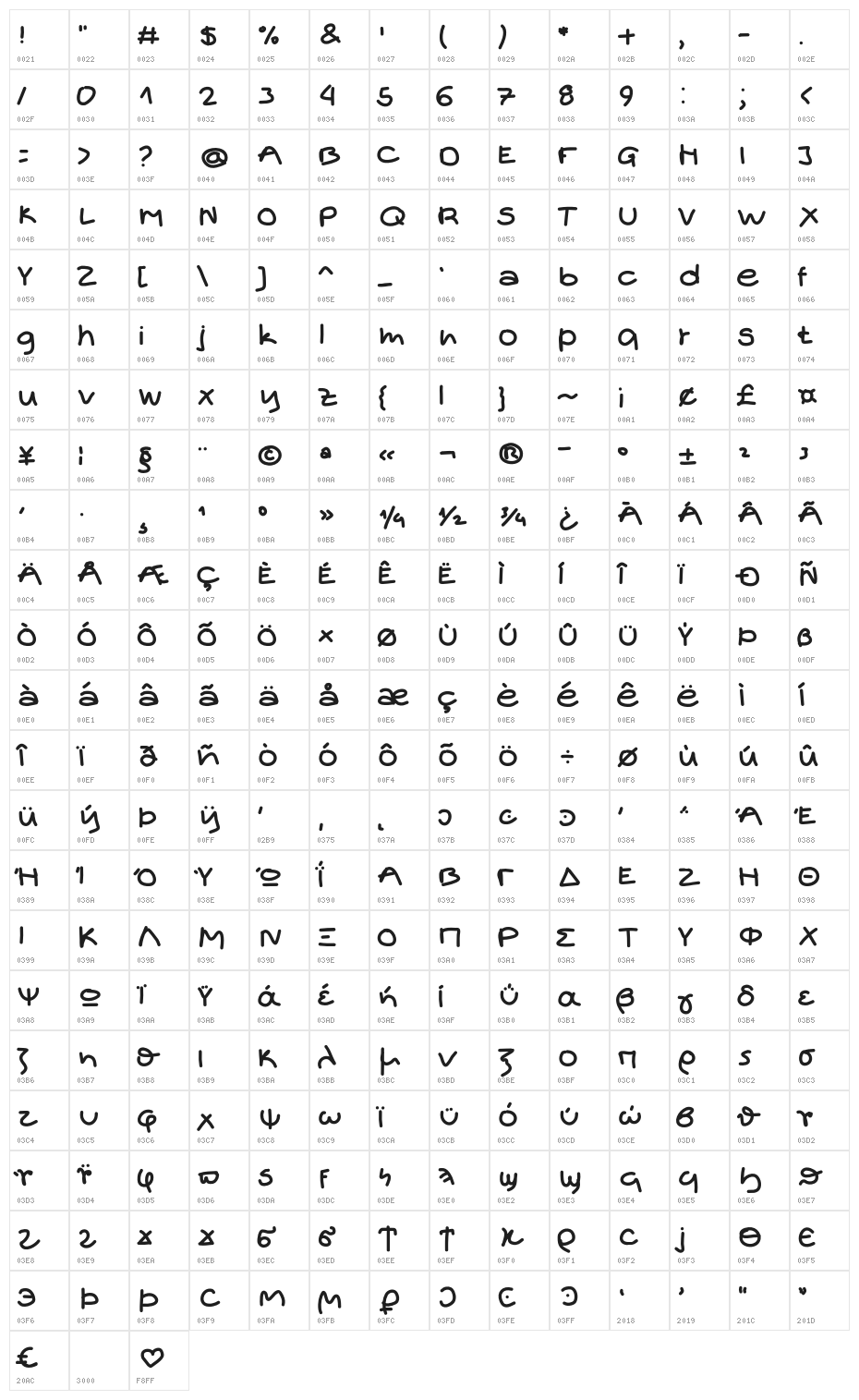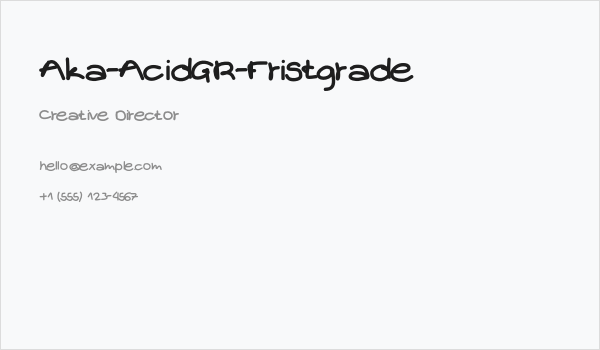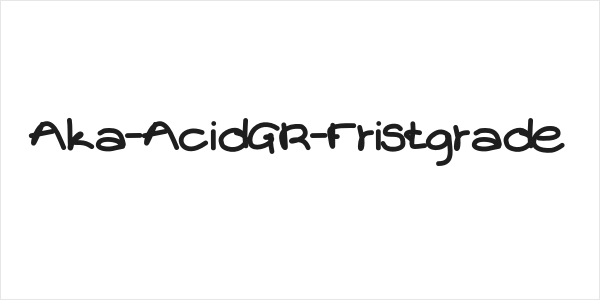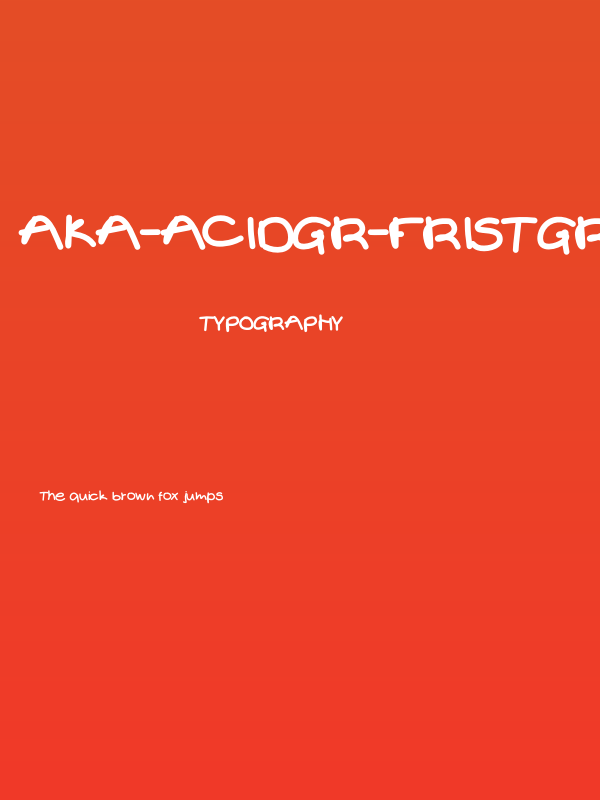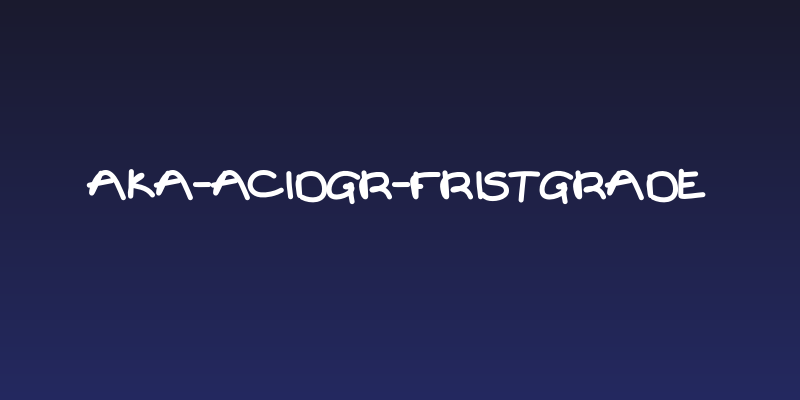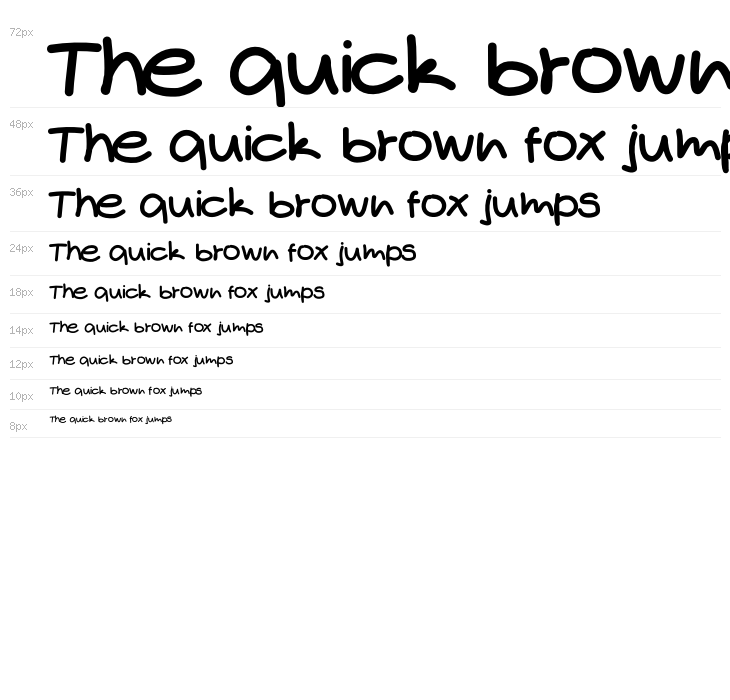
Aka-AcidGR-Fristgrade Font
Aka-AcidGR-Fristgrade Description
This playful and energetic font features a handwritten style with bold, rounded strokes. The characters are slightly irregular, giving it a casual and friendly appearance. The uppercase and lowercase letters maintain a consistent style, with a slight slant that adds to its informal charm. The numbers and special characters are equally expressive, making it suitable for creative and fun projects. The overall design is reminiscent of a child's handwriting, making it ideal for educational materials or playful branding.
| Proposed Projects | Ideal for children's books, educational materials, playful branding, and creative posters. |